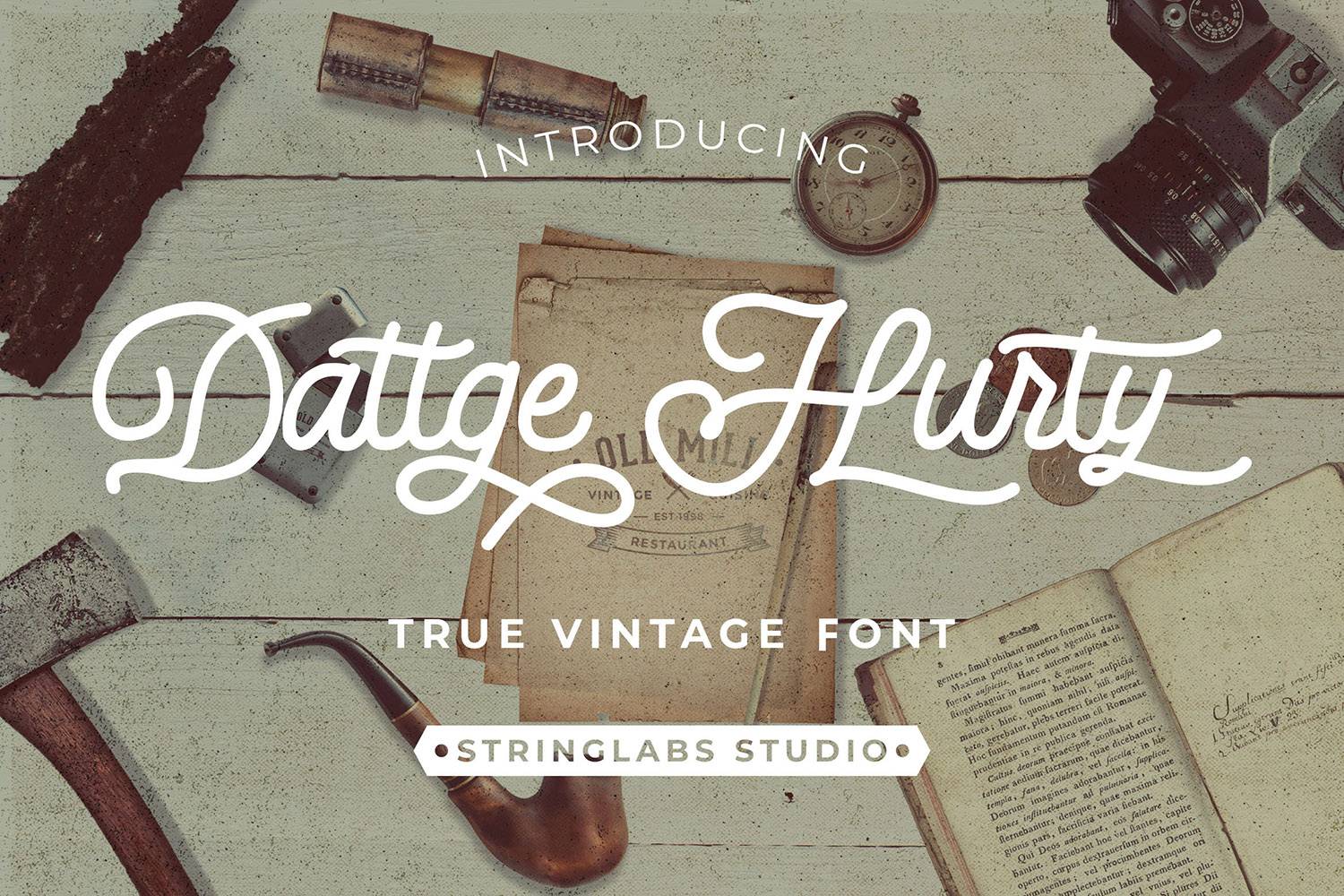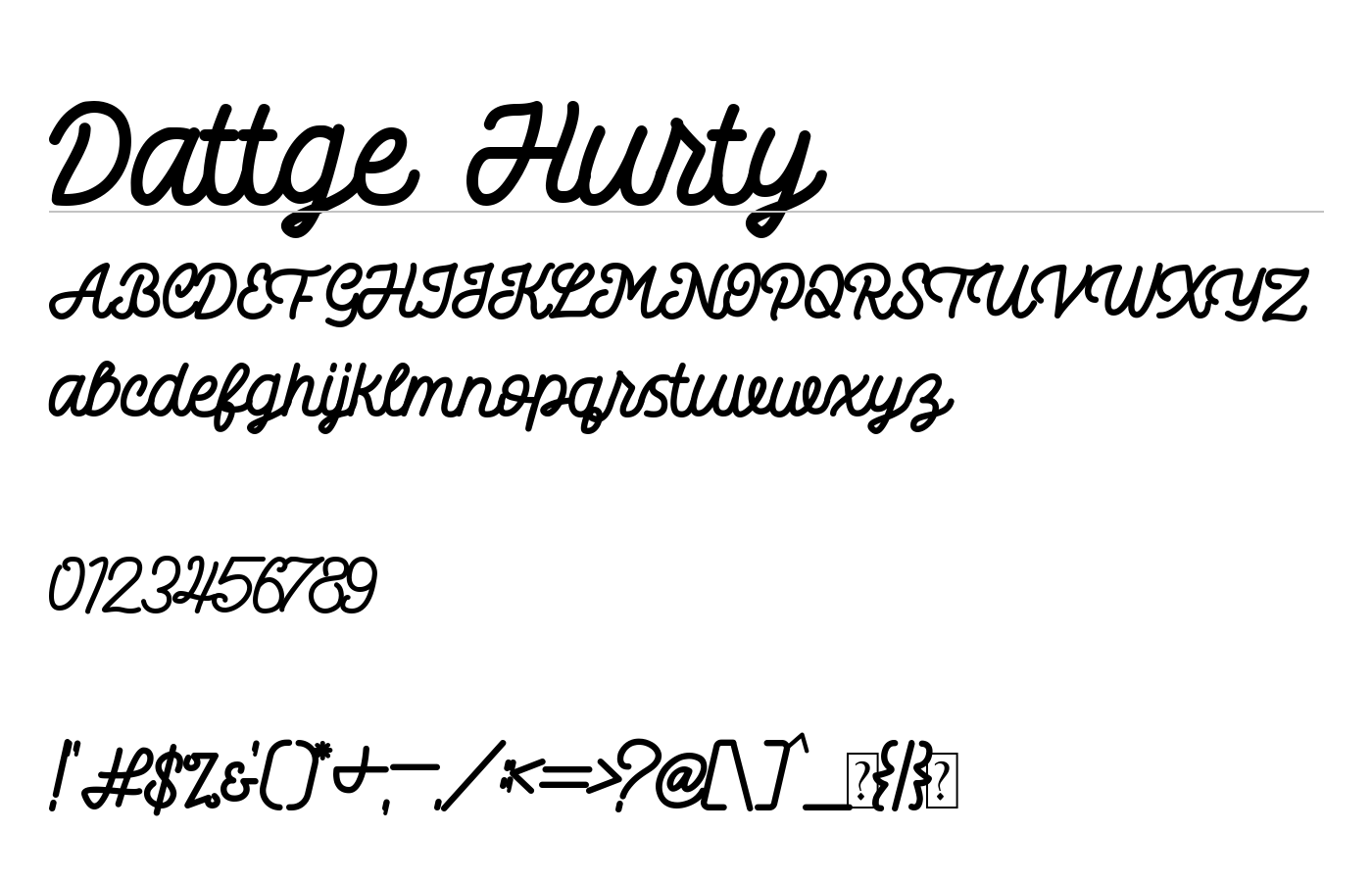
Dattge Hurty is a lively script font with a smooth, connected flow that gives a friendly and approachable vibe. Its moderate weight and slightly condensed letterforms with fluid curves make it ideal for casual, creative branding and inviting headlines. This font works beautifully in projects that want a personal, handwritten touch without losing clarity or style.
Dattge Hurty Font
About Dattge Hurty Font
| Font family | Dattge Hurty Font |
| Designer | Stringlabs. 2020 |